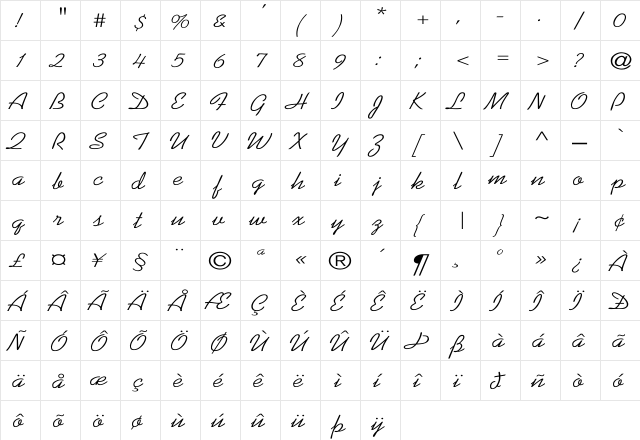
Kaufmann-Normal Wd Regular
Design Context for Kaufmann-Normal Wd Typeface
Kaufmann-Normal Wd offers clean, dependable letterforms without strong stylistic allegiance, making it a practical choice for designers who need flexibility.